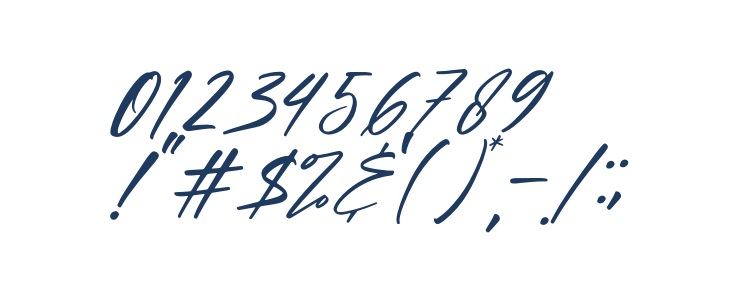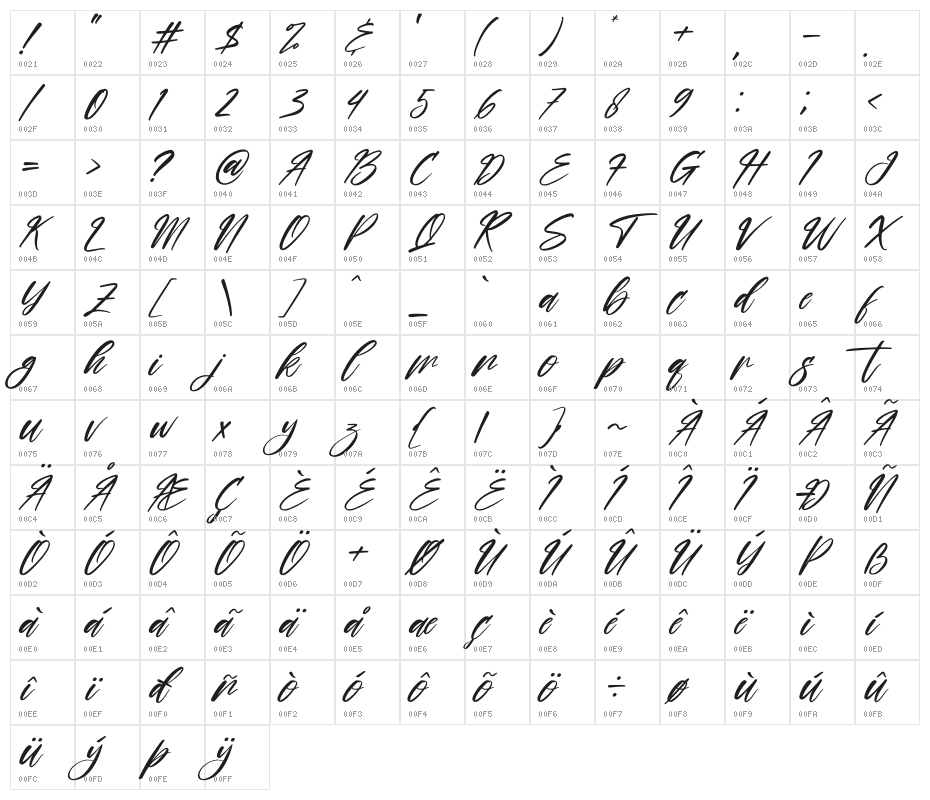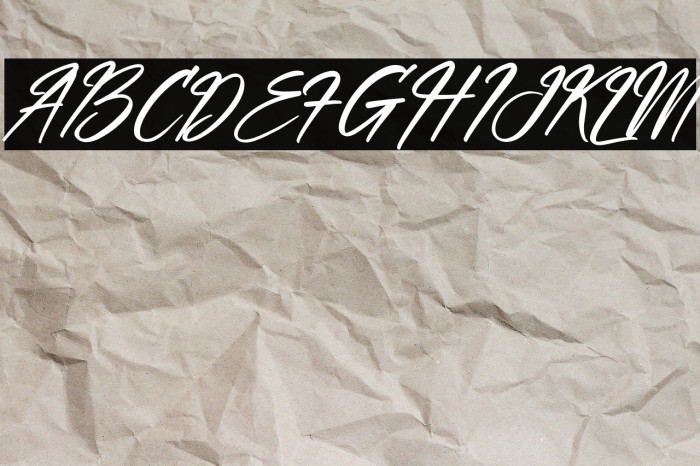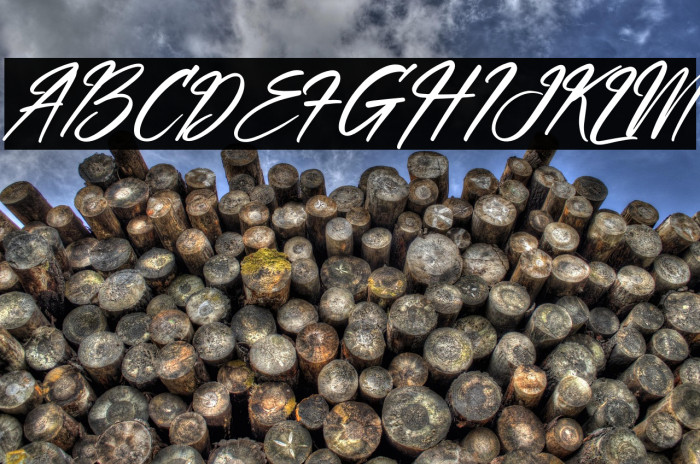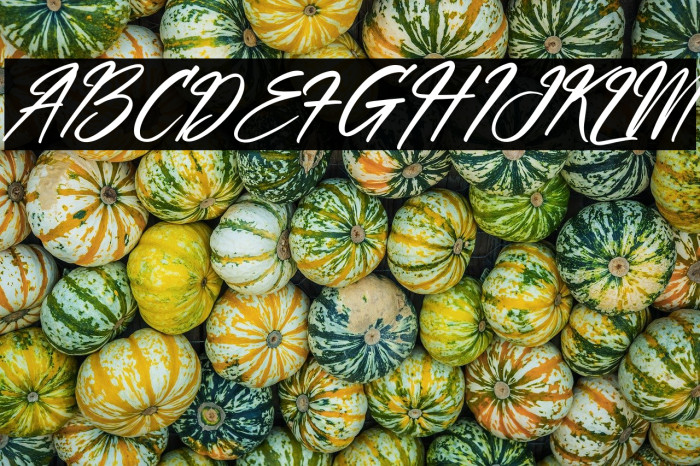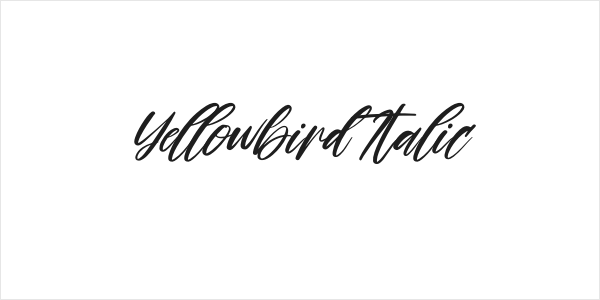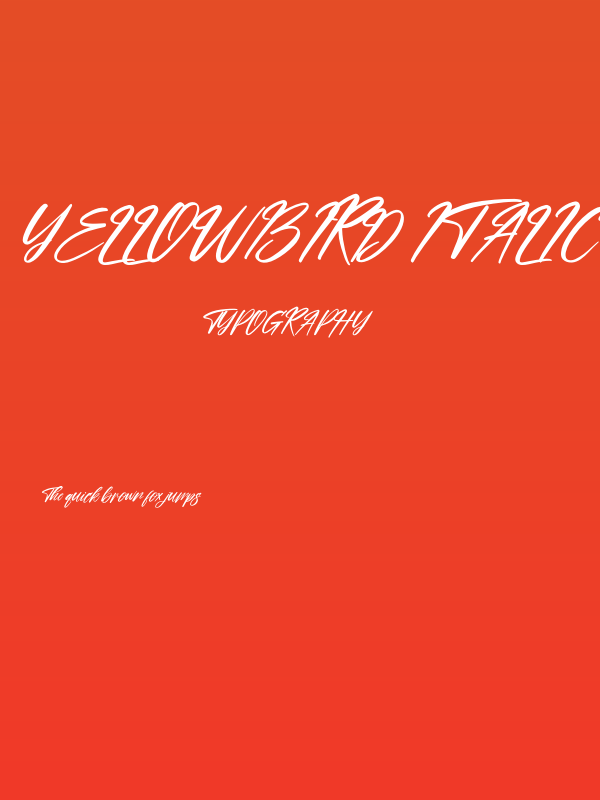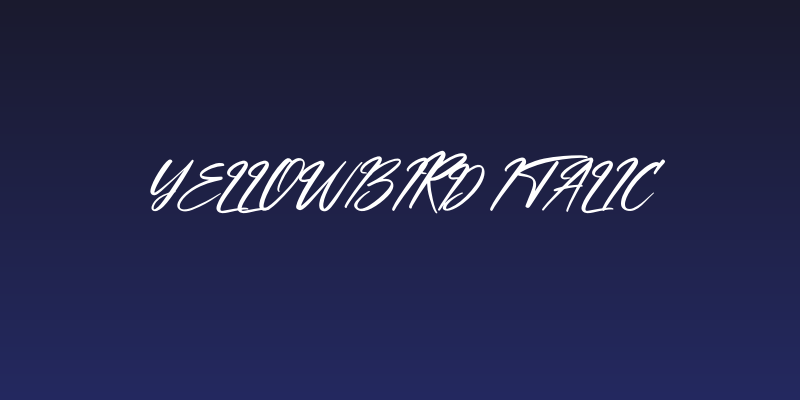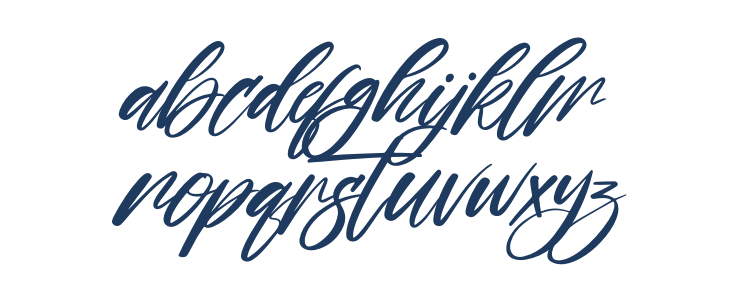
Yellowbird Italic Font
Yellowbird Italic Description
This font exhibits a dynamic and flowing script style, characterized by its cursive, handwritten appearance. The letters are connected, creating a seamless and elegant look. The strokes are bold and expressive, with a consistent slant that enhances its italic nature. The uppercase letters are slightly larger and more pronounced, while the lowercase letters maintain a smooth and fluid form. The numerals and special characters are crafted to match the overall aesthetic, ensuring a cohesive design. This font is ideal for projects that require a personal touch or an artistic flair.